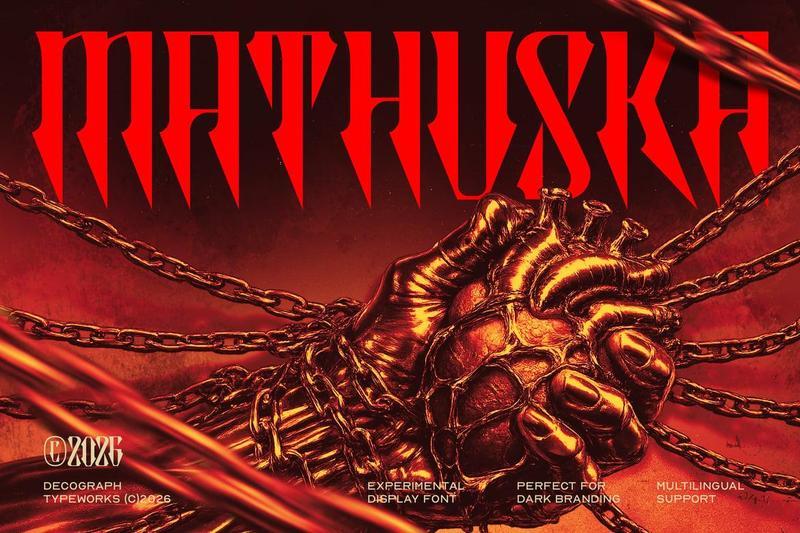
Mathuska – Experimental Blackletter Font EUZFQLC
Mathuska Experimental Blackletter Font is a bold dark display typeface inspired by gothic lettering, heavy metal aesthetics, and aggressive visual identity. Its sharp vertical cuts, dramatic shapes, and intense letter construction create a powerful atmosphere with strong experimental character.
**Font Features:**
* Uppercase Letters
* Numbers And Punctuation
* Multilingual Support
* Sharp Gothic Forms
* Experimental Display Style
* Bold Blackletter Character